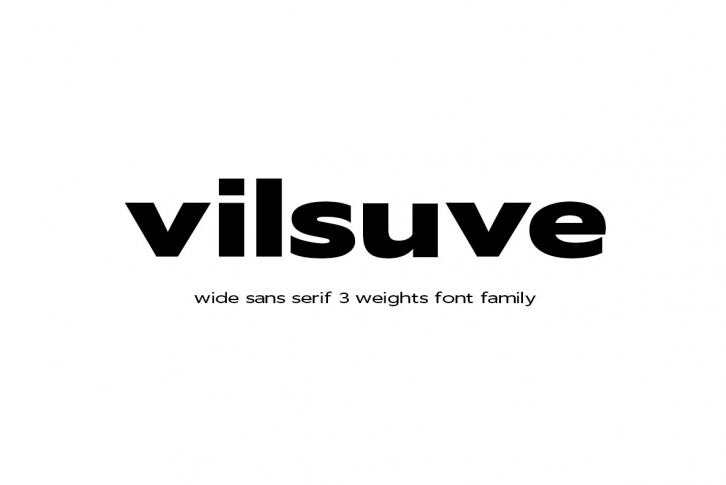
Vilsuve is a wide sans serif
It’s a strong capitals and a sharp, open lowercase are effective in a variety of applications. Tempered by sharp edges and vibrant shapes.
3 Weights Bold, Regular, Thin
Uppercase / lowercase / Oblique / context alternates / Numbers & Punctuation / Foreign Language Support
USE
Vilsuve works great in any branding, films, magazines, header, logos. The different styles give you option to explore a whole host of applications, while the oblique and lowercase alternates fonts give a real modern feel to any project.